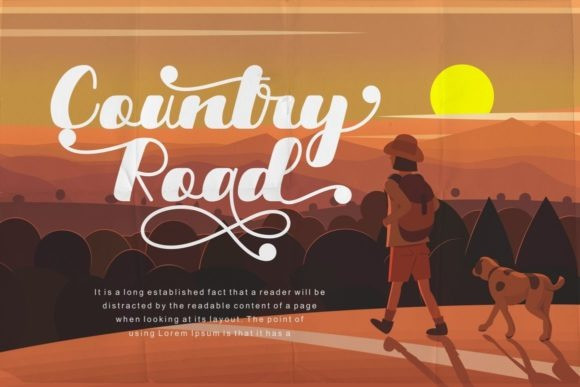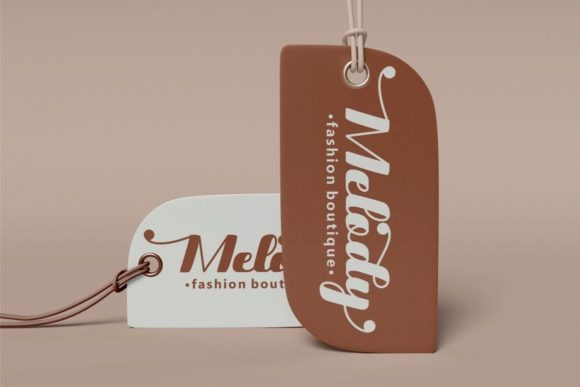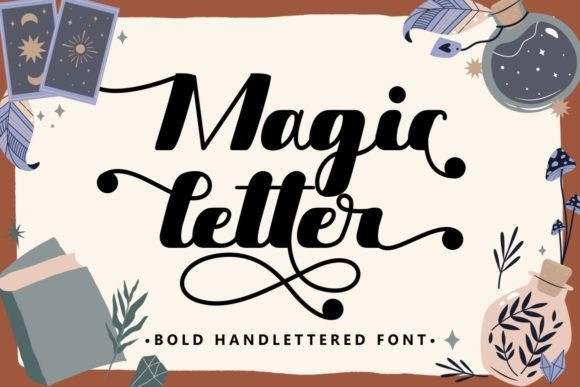
Magic Letter Font
Magic Letter Font, is an elegant and dainty handwritten font that features sweet and delicate swashes. This original look will appeal to a wide range of crafty ideas, from letterheads and titles, to stationery. Magic Letter is PUA encoded which means you can access all of the glyphs and swashes with ease!